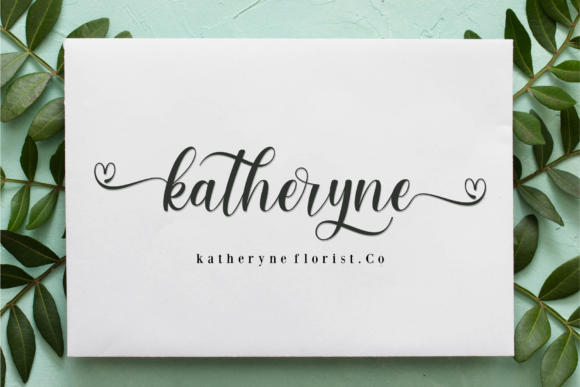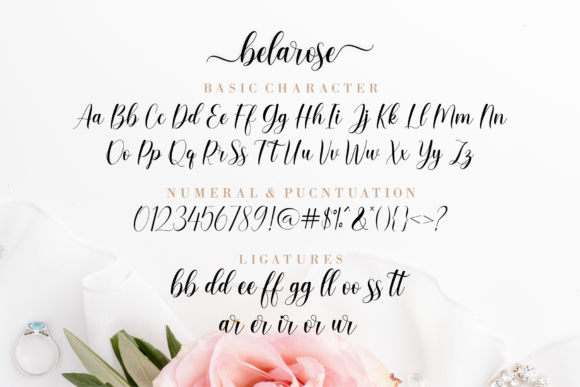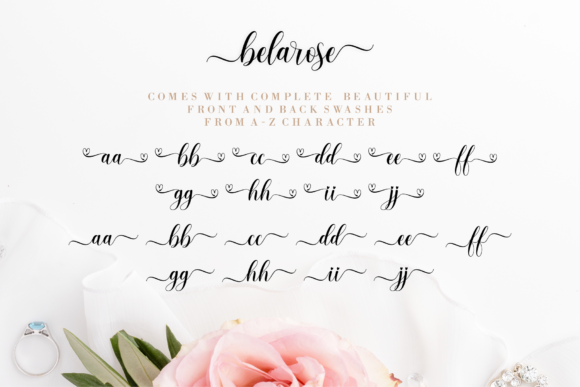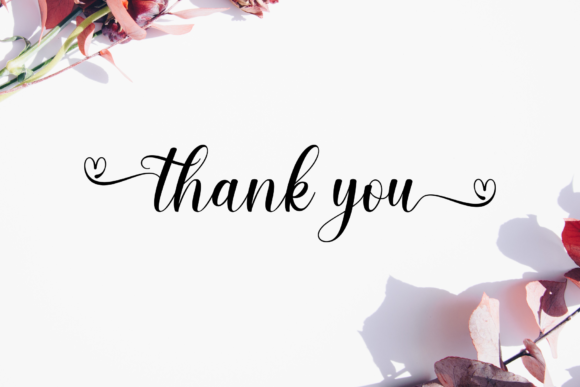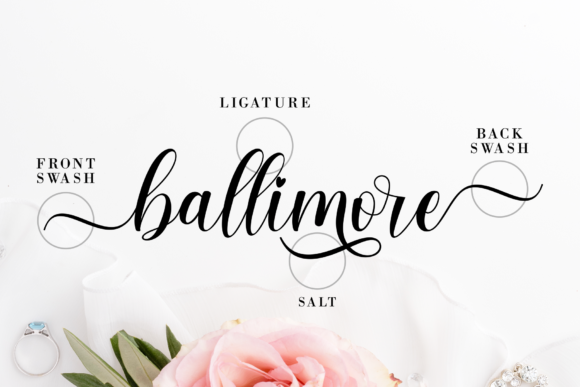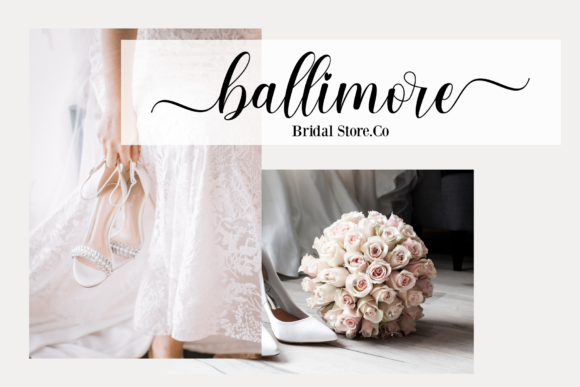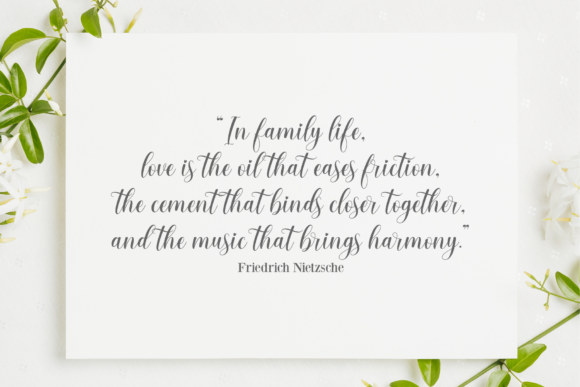
About Belarose Font
Belarose is a charming handwritten font, created to become a true favorite. This font is PUA encoded which means you can access all of the glyphs and swashes with ease! It features a varying baseline, smooth lines, gorgeous glyphs and stunning alternates.
Fall in love with Belarose’s incredibly versatile style and use it to create gorgeous wedding invitations, beautiful stationary art, eye-catching social media posts, and much more!